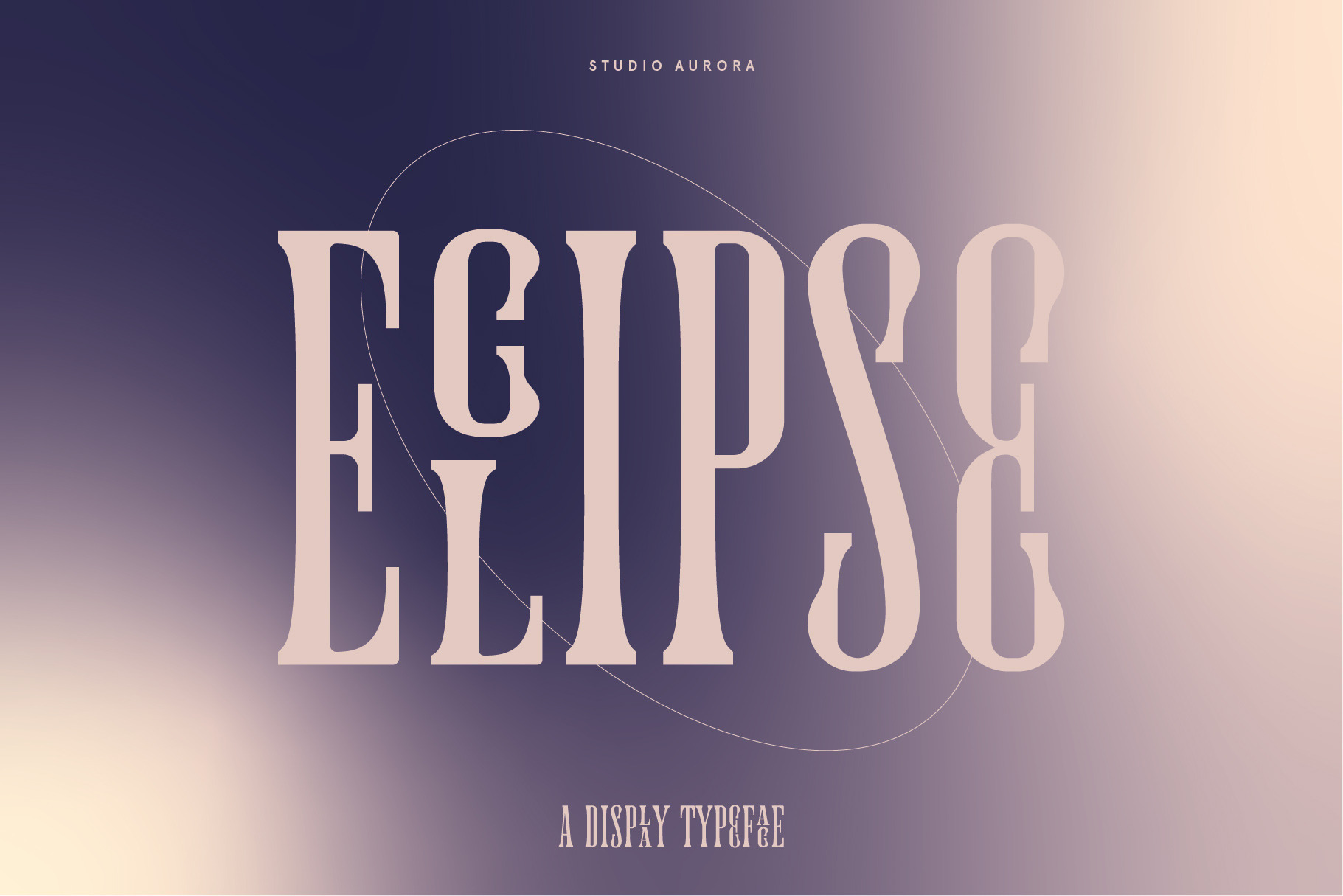
Eclipse – Serif Ligature Font
Hello! Introducing our new typeface, Eclipse - A classic, condensed serif typeface with little design quirks and full of unique stacked ligatures that can be utilized to allow your designs to stand out.
This is a serif font with display-type properties that we recommend using in the following types of work; magazines (titles and layouts), logos and branding, invitations, social media, quotes, blog headers, posters and advertising.
- Uppercase glyphs
- Over 290 glyphs including punctuation and numbers
- Unique ligature glyphs
I love it! It's so elegant, and for a stacked font it's easy to read too. Highly recommended.
This font gives a nice, late Victorian feel, similar to Painters Gothic/Adobe Juniper, with a more slender appearance that lends itself we'll to posters, signage, and packaging. While the glyphs/characters are well drawn or created, and having a nice collection of ligatures, I think the kerning needs some work. Try typing out; 14747672?!@ $123¢5908% 1,2,3,4,5,6,7,8,9,0, -1-2-3-4-5-6-7-8-9-0- You'll see some odd spacing and gaps that should be fairly easy for the foundry to fix, so I look forward to seeing the updated version(s). Adding a small capped version, maybe with the small cap/lowercase letters, being about 95% of their original height, and centered vertically with the uppercase letters..